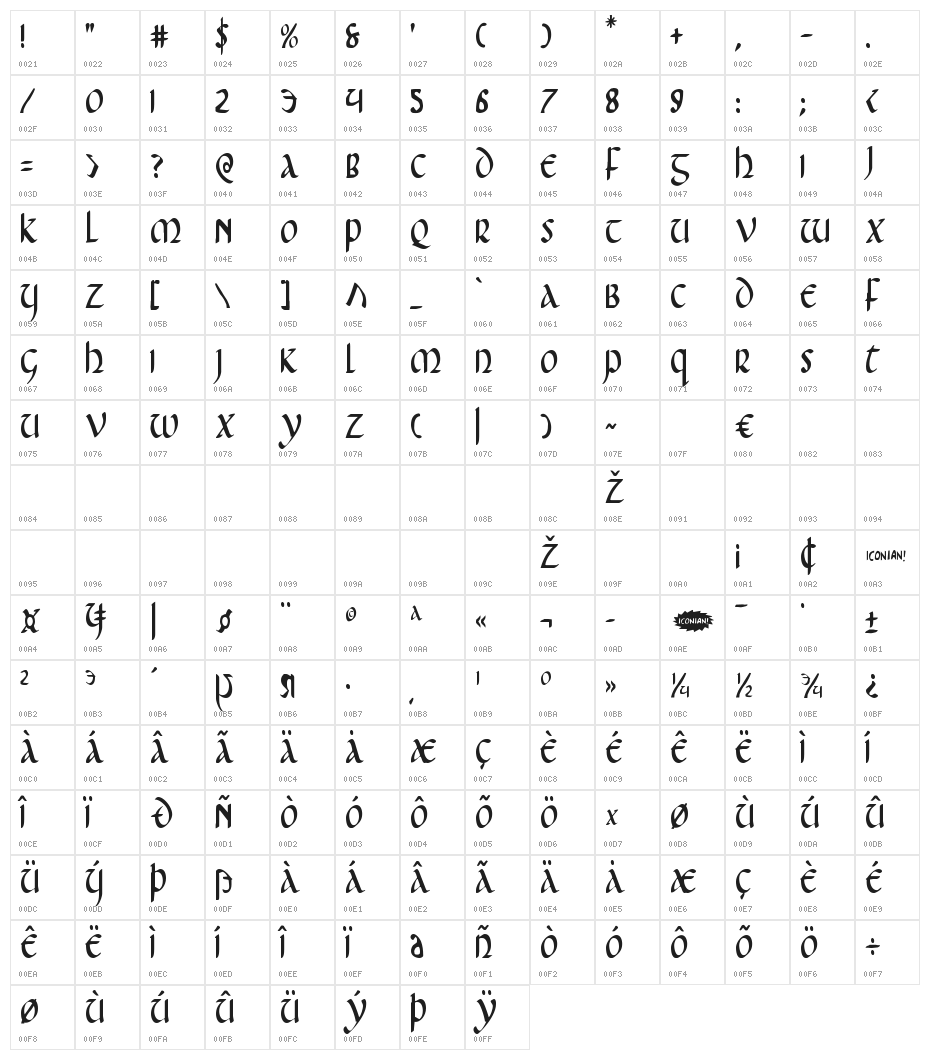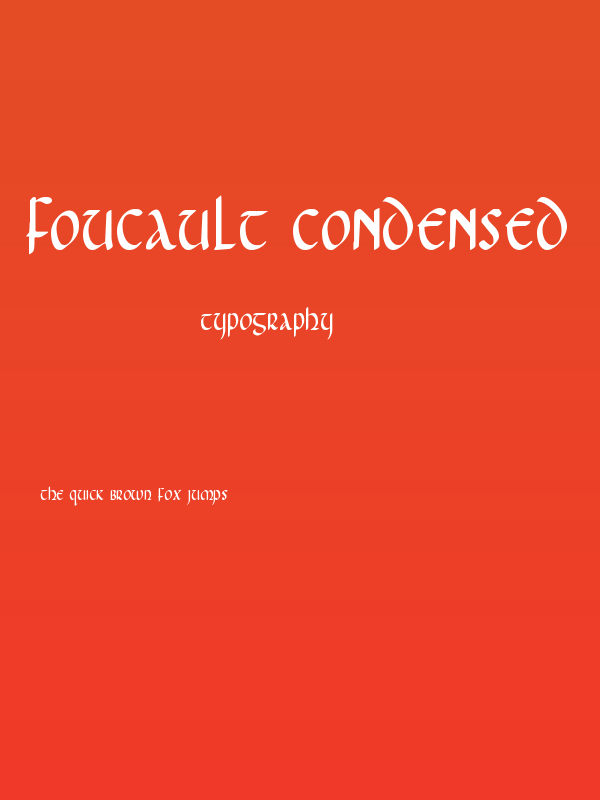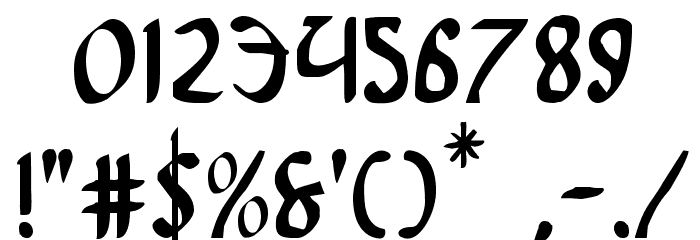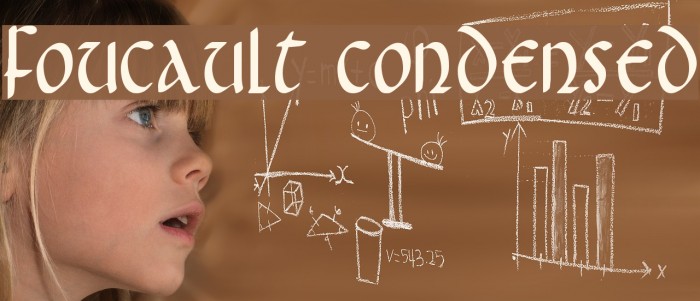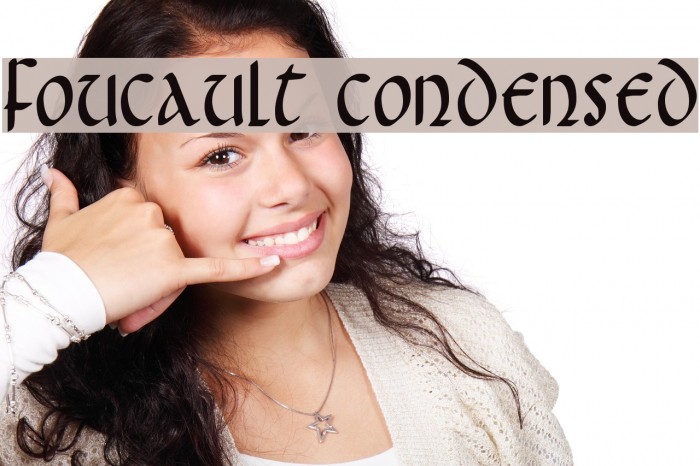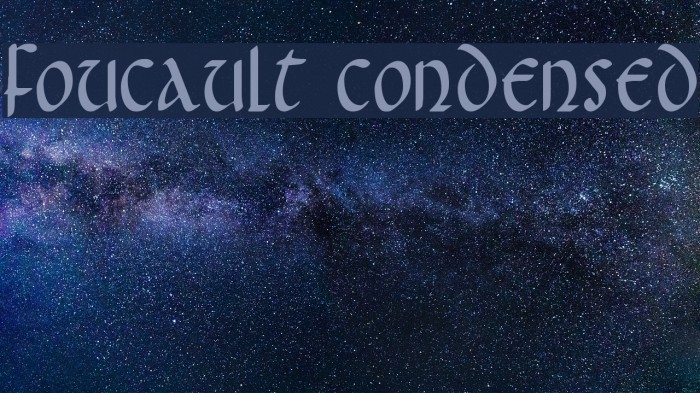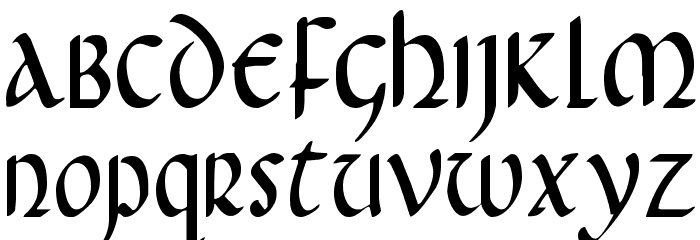
Foucault Condensed Font
Foucault Condensed Description
This font features a distinctive, calligraphic style with a medieval flair, characterized by its sharp, angular strokes and elegant curves. The uppercase letters exhibit a strong presence with their bold, sweeping lines, while the lowercase letters maintain a consistent flow, enhancing readability. The numerals are uniquely styled, adding a touch of sophistication and historical charm. Special characters are crafted with the same attention to detail, making them seamlessly integrate with the overall design. This font's condensed nature allows for efficient use of space, making it ideal for projects where text needs to be both impactful and space-conscious.
FOUCAULT-CONDENSED UPPERCASE
FOUCAULT-CONDENSED LOWERCASE
FOUCAULT-CONDENSED OTHER CHARS